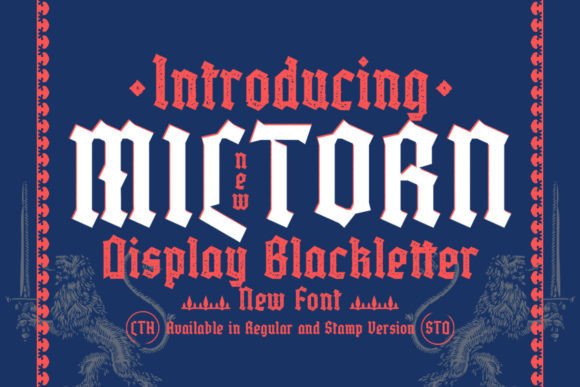
Are you ready to take your writing to the next level? Introducing Miltorn, the best font for writing a novel. This captivating blackletter font, created by letterhend, is the perfect tool to unlock your creativity and bring your words to life.
Miltorn is not your ordinary font. With its bold and unique style, it adds a touch of elegance and sophistication to any project. Whether you're working on a logo, clothing design, fashion magazine, headline, or any type of advertising, Miltorn will make a lasting impression.
One of the key features of Miltorn is its versatility. The font comes in two styles: regular and stamp. The regular style is ideal for formal and professional settings, while the stamp style adds a vintage and authentic touch to your designs. You have the freedom to choose the style that best suits your creative vision.
But Miltorn offers more than just style. It also comes with an ornament bonus, allowing you to add decorative elements to your designs effortlessly. These ornaments will elevate your projects and make them truly eye-catching, capturing the attention of your audience.
Imagine the impact your novel cover will have with Miltorn. Its blackletter design exudes a sense of timelessness and intrigue, instantly drawing readers in. Your words will come alive on the page, creating a visual experience that matches the depth and emotion of your story.
Miltorn is more than just a font. It's a tool that empowers writers and designers to express their unique voice and captivate their audience. Let your creativity flow, and let Miltorn be your guide.